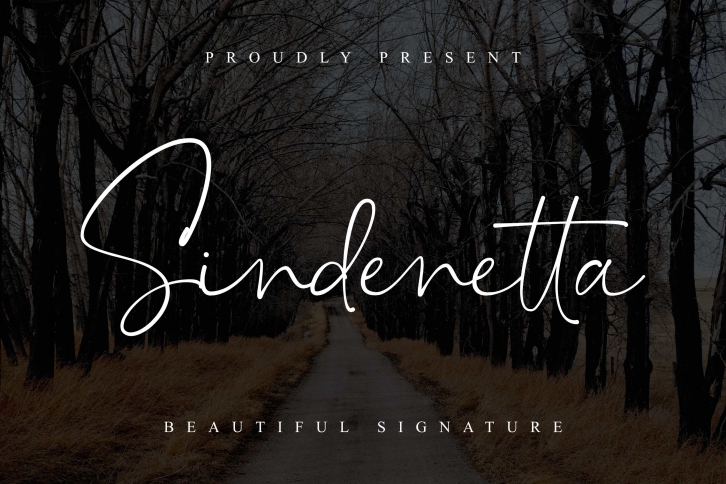
Sindenetta is a beautiful font that was designed by Almarkha Type. It's a great choice for designers and creatives who need such a font. It was released on November 8, 2020 and the file size is 1.28 MB. Sindenetta may give a more youthful, expressive and casual look to your project. It is a very beautiful, refined, elegant, and high-quality font.